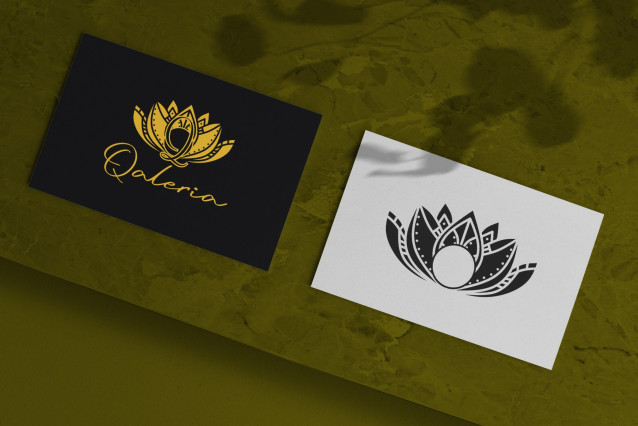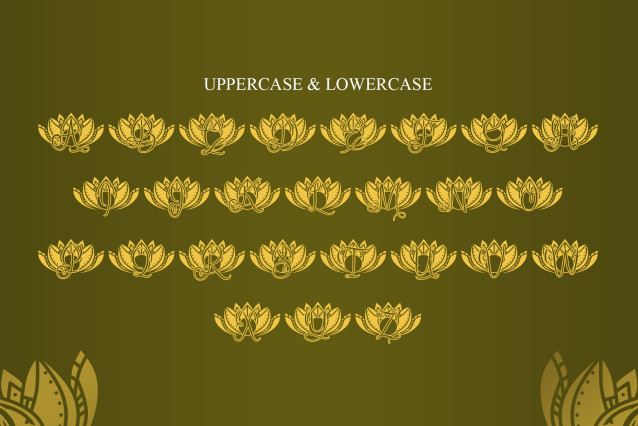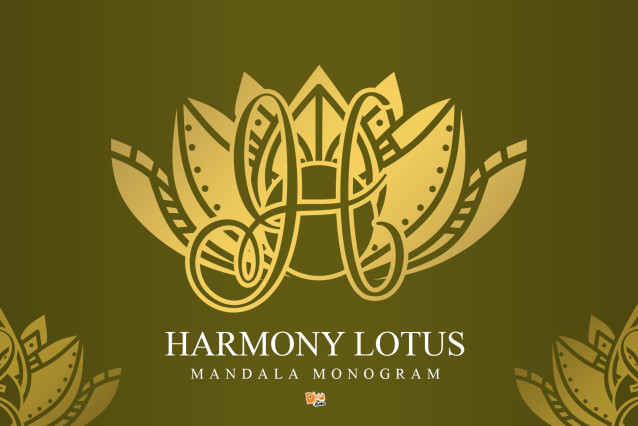
Harmony Lotus Mandala Monogram Font
Harmony Lotus Mandala Monogram is a graceful typeface combining the symbolic lotus flower with harmonious mandala patterns. This monogram font radiates peace and balance, making it an ideal choice for wellness brands, personalized stationery, spiritual merchandise, and elegant invitations. Each character is meticulously designed to bring a touch of calm sophistication to any creative project.